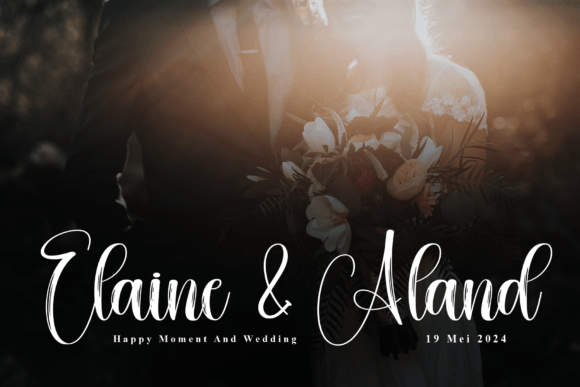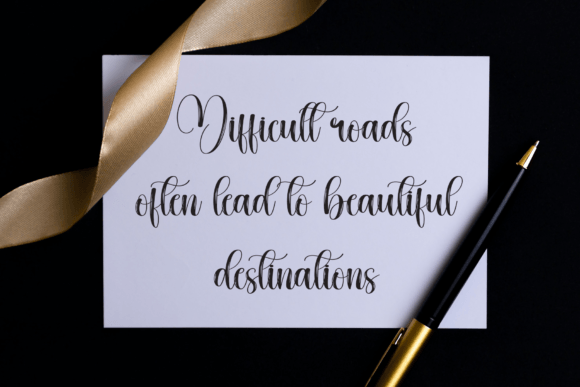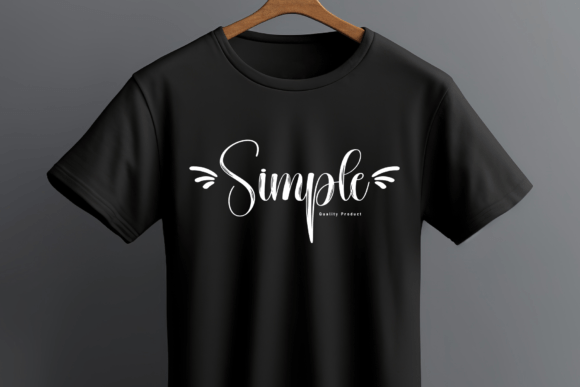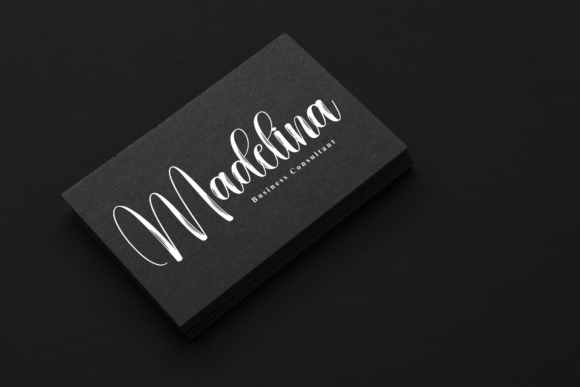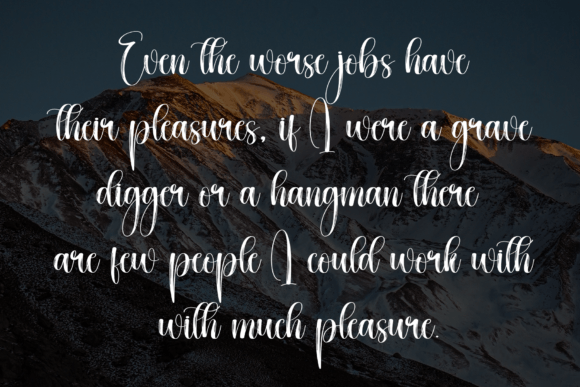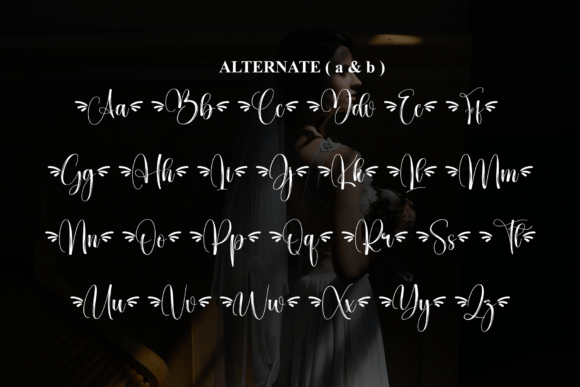
The Perfect Font to Seal Your Design
Do you remember that moment when a beautiful font just clicks with your vision, and you know you’ve found the perfect match? For designers, this moment is a game-changer. It’s the spark that ignites creativity and sets the tone for an amazing project. For me, that moment happened when I stumbled upon the Bride Font.
This lovely and timeless handwritten font is a dream come true for designers looking to add a personal touch to their work. With its unique and beautiful letterforms, the Bride Font brings designs to life, making it a go-to choice for logos, branding, and quotes. Whether you’re a seasoned pro or a budding designer, the Bride Font is a valuable addition to your toolkit, offering endless possibilities to elevate your designs and leave a lasting impression.
Bride Font Key Features
- Unique Characteristics: This font features elegant, flowing lines and intricate details, making it ideal for wedding invitations, formal event invitations, and other special occasions.
- Font Weight and Width: The font has a medium weight and a normal width, making it suitable for use in a variety of contexts, from body text to headlines.
Bride Font Review
Overall, I think the Bride Font is a charming choice for wedding-related projects. It works well for titles and headings, with its elegant and romantic feel ✨. The font’s swashes and flourishes add a touch of whimsy, making it perfect for wedding invitations, stationery, and other paper crafts ✨.
- The font’s cursive script is smooth and flowing, making it easy to read.
- The font’s size and weight options are versatile, allowing for a range of design possibilities.
- The font’s romantic feel is perfect for wedding-related projects.
However, there are some limitations to consider ⚠️. The font may not be suitable for body text, as it can be difficult to read in smaller sizes ⚠️. Additionally, the font’s swashes and flourishes may not be suitable for all design styles, and may require additional design effort to integrate seamlessly ⚠️.
Overall, I think the Bride Font is a great choice for designers who want to add a touch of elegance and romance to their wedding-related projects. While it may have some limitations, its unique charm and versatility make it a valuable addition to any designer’s toolkit.
Tips for Getting the Most Out of the Bride Font
Use the Bride Font in combination with other wedding-themed elements, such as flowers, hearts, and wedding bells, to create a cohesive and romantic design. Experiment with different font sizes, colors, and styles to achieve the desired look. Consider using the Bride Font in conjunction with other fonts to create a unique and personalized design.
The Bride Font is commonly used for:
Wedding invitations and save-the-date cards
Wedding website designs and social media graphics
Wedding stationery, such as thank-you cards and place cards
Wedding-themed presentations and documents